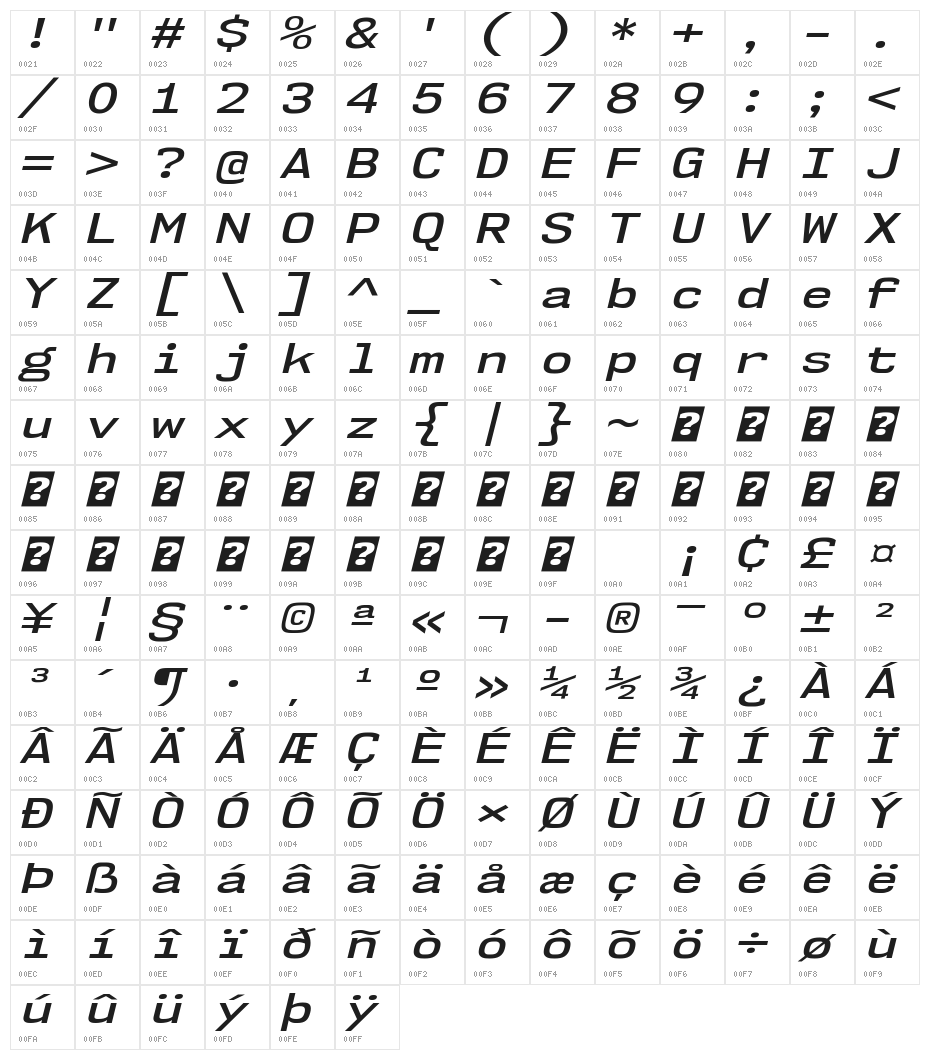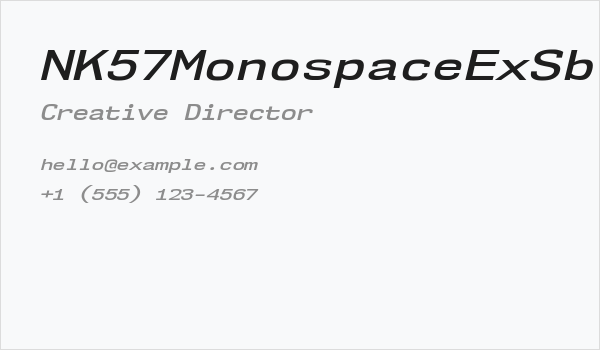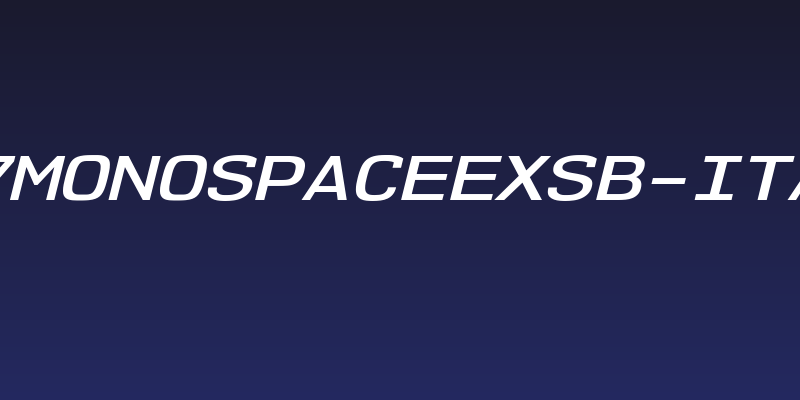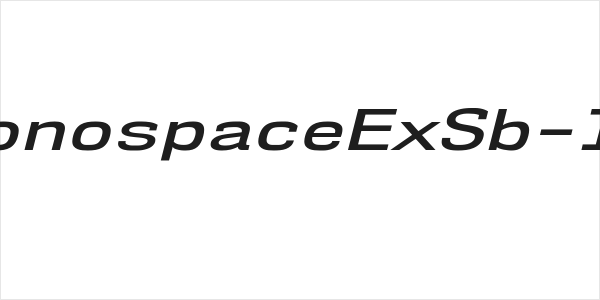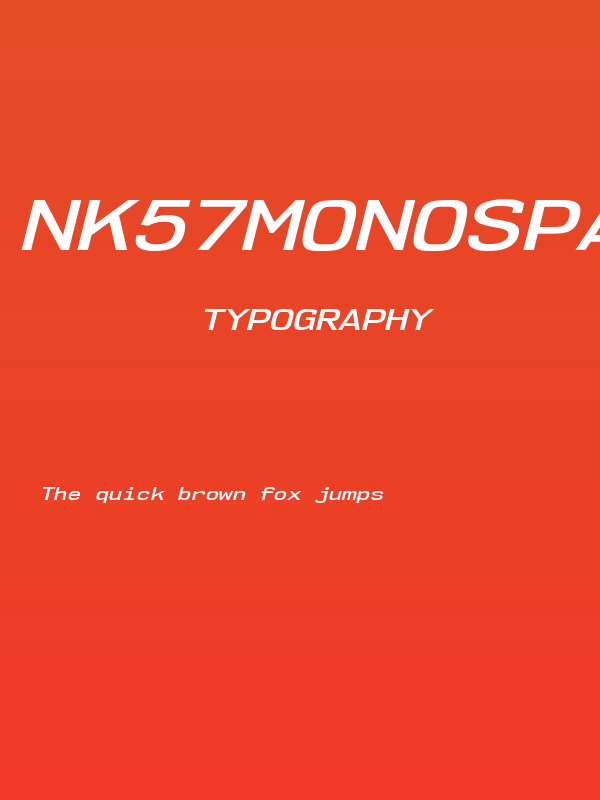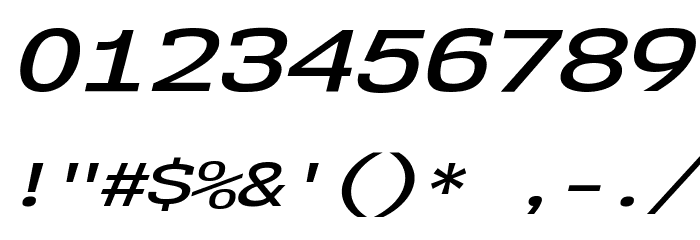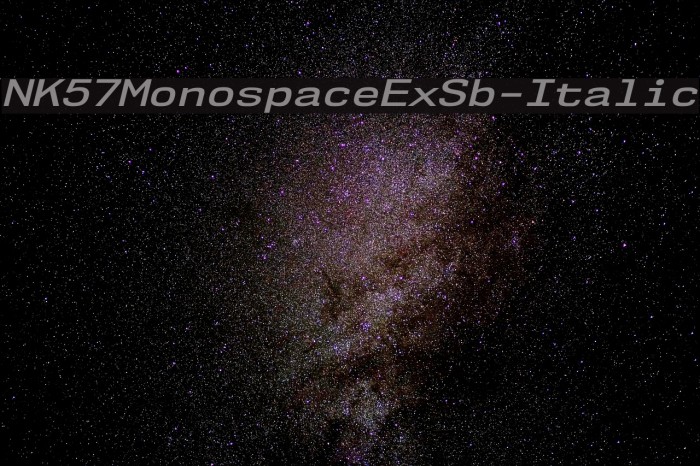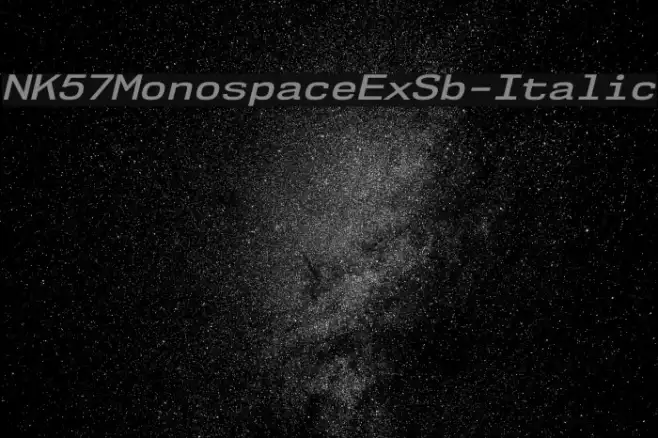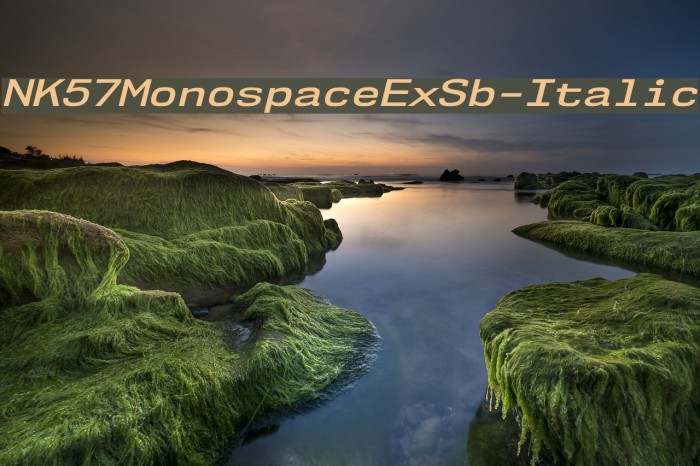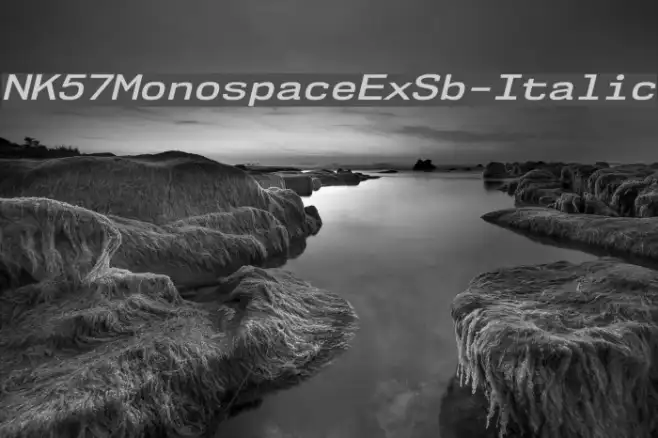
NK57MonospaceExSb-Italic Font
NK57MonospaceExSb-Italic Description
This font features a clean, structured design with a monospaced layout, ensuring each character occupies the same width. The italic style adds a dynamic and modern touch, making it suitable for both technical and creative applications. The characters are well-defined with a slight slant, enhancing readability while maintaining a professional appearance. The consistent spacing and uniformity make it ideal for coding, technical documents, and any project requiring precision and clarity. The font's design balances functionality with a subtle aesthetic flair, making it versatile for various uses.
| Use Case | Coding, Technical documents, User interfaces |
| Proposed Projects | Ideal for coding, technical documentation, user interfaces, and creative projects requiring precision. |